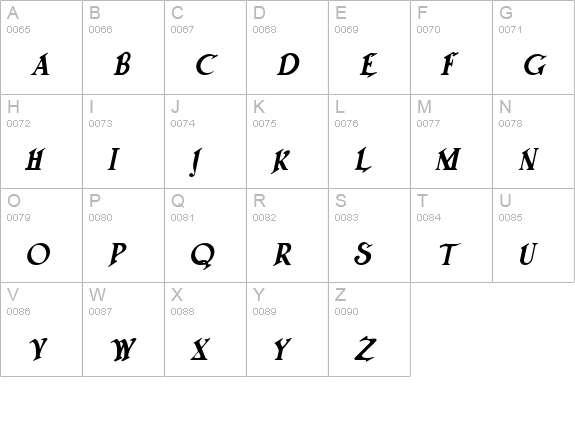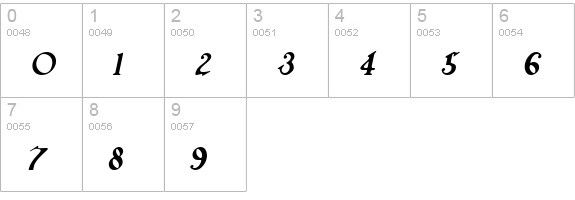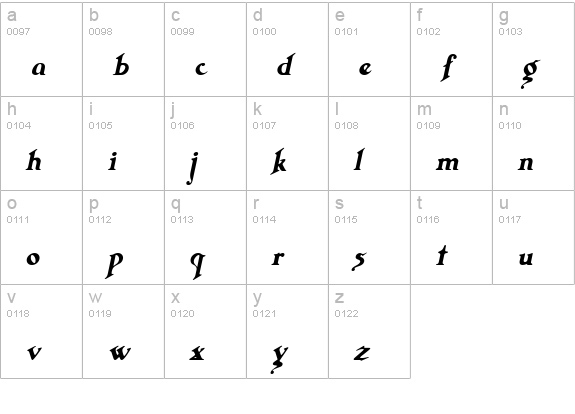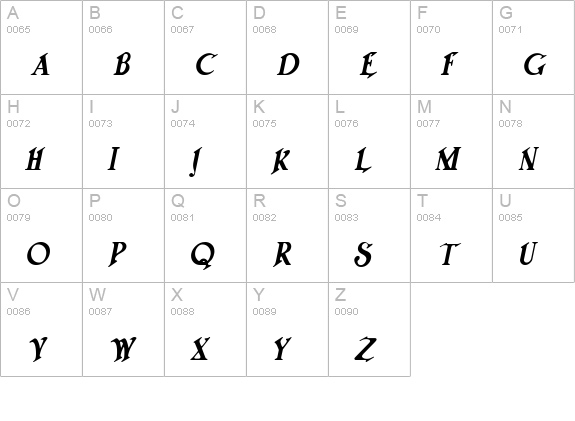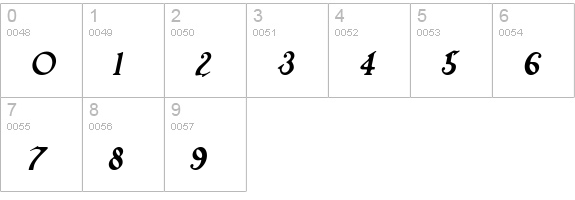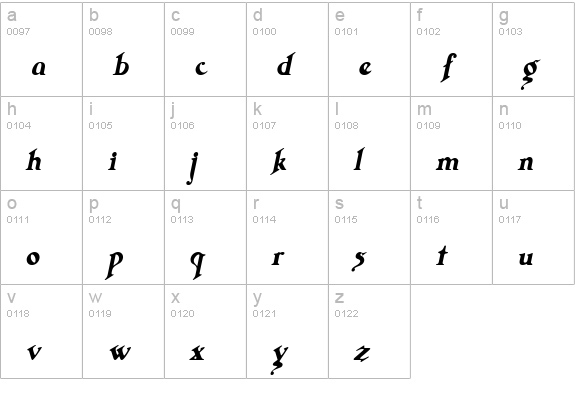
Trifles Italic is a distinctive, italic variant in the Trifles typeface family \xE2\x80\x94 well suited to design and typography projects.
Trifles Italic font is a beautifully crafted typeface that exudes elegance and sophistication. Its slender and delicate letterforms create a sense of grace and refinement, making it perfect for projects that require a touch of class. This font offers a unique blend of contemporary design with a hint of vintage flair, making it versatile for a wide range of creative endeavors. Whether you're designing wedding invitations, branding materials, or editorial layouts, Trifles Italic will add a touch of sophistication and distinction to your work. What sets Trifles Italic font apart is not only its aesthetic appeal but also its availability. It is freely available to download at FontsMarket.com, allowing designers and typographers to access this exquisite typeface without any cost. It's a fantastic opportunity to enhance your design toolkit with a high-quality font that won't break the bank. The delicate curves and intricate details of Trifles Italic font make it an excellent choice for projects that demand attention to detail. Its strong presence on the page will captivate readers and add a touch of elegance to any text. Additionally, its italic nature adds a sense of movement and fluidity, bringing a dynamic quality to your typography. Whether you're a seasoned designer or a beginner in the field, Trifles Italic font is a must-have in your collection. Its beauty, versatility, and the fact that it is freely available to download make it an exceptional choice for any design project. Embrace the elegance and sophistication that Trifles Italic brings to your work and watch as it elevates your designs to new heights of creativity.